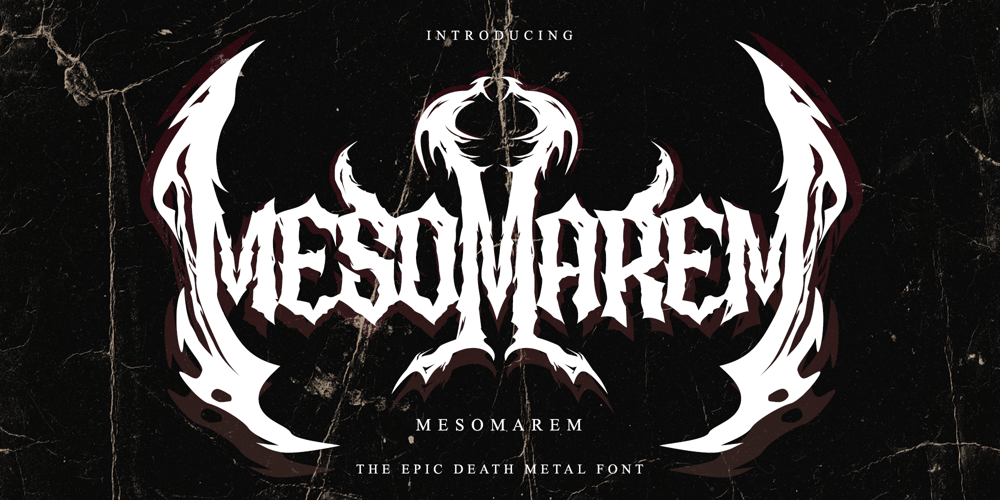
Mesomarem Font Family was designed by Edhi Prayitno and published by Absonstype. Mesomarem contains 1 styles and family package options. MESOMAREM is the Black Metal – Death Metal – Trash Metal or any Metal Music display font with all caps style looks and feel nice balanced.Created your design just with the play alternates fontHonestly it works perfectly for headlines, logos, posters, packaging, T-shirts and much more for branding and anything designs. How to access Alternates Character? In canva –> https://youtu.be/rdz8H93KwEE?si=VWz9f0e7edd3hd0g In Microsoft Word –> https://youtu.be/FNHwxmT1zM0?si=7XTeSrSD7PcZXDdP In Photoshop Open glyphs panel : In Adobe Photoshop choose tool > Window > glyphs In Adobe Illustrator choose tool > Type > glyphs If you have questions, just send me a message and I’m glad to help.Have a great day,Absonstype